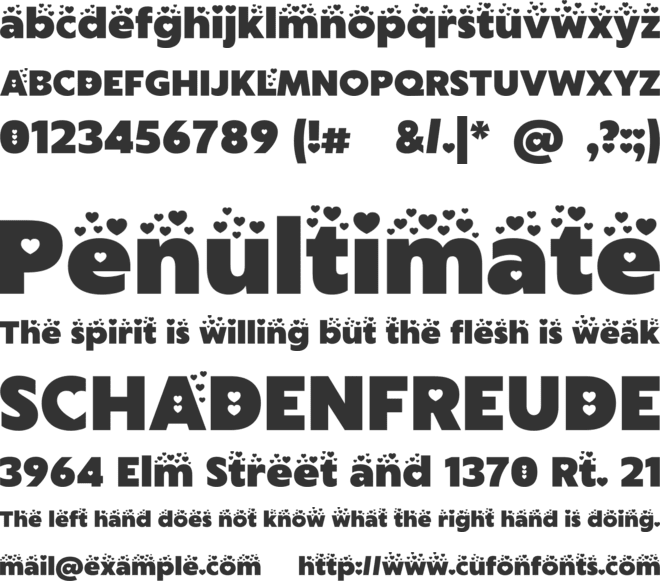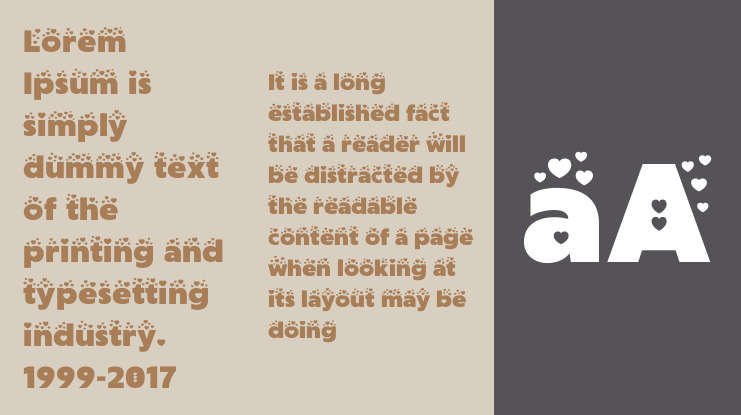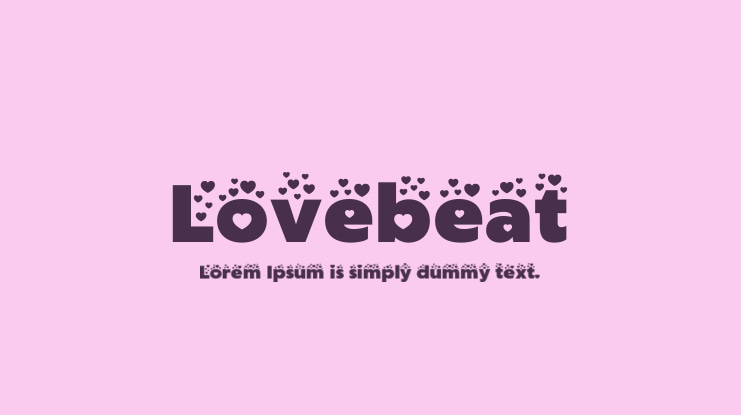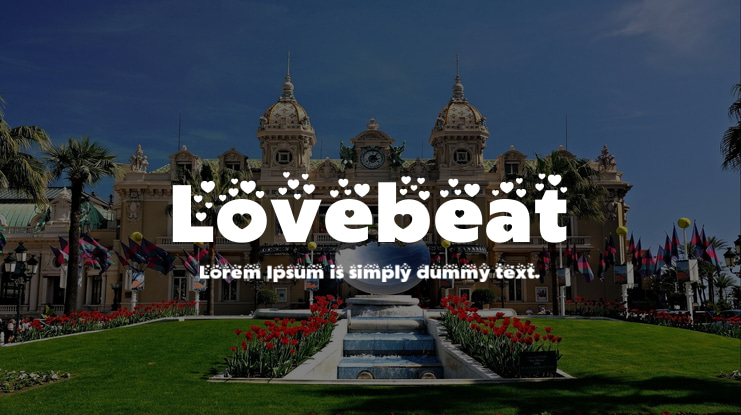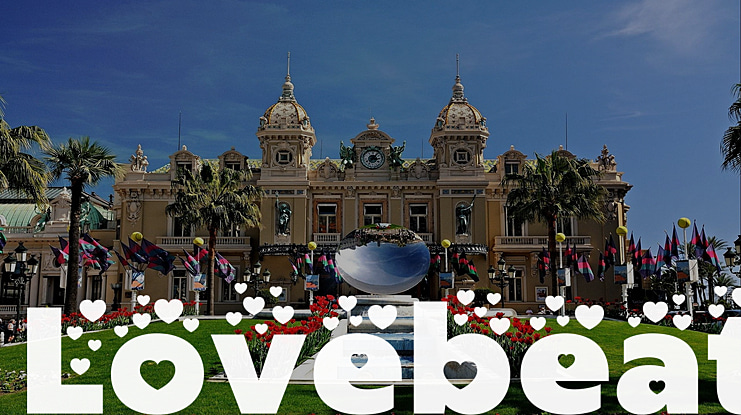
Lovebeat Font
Anita Jürgeleit - Type Design
"Lovebeat" is a heart decorated Valentines font, with 600+ glyphs, including:
- A-Z, a-z, 0-9, accents, punctuation and symbols - Stylistic alternates - Ligatures